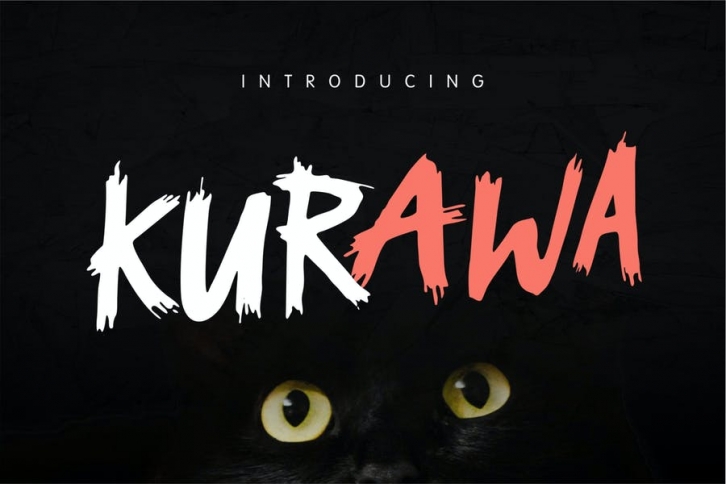
Kurawa is perfect to use for Logotype, Letterhead, Poster, Apparel Design, Label and etc.
The alternative characters were divided into several features such as Stylistic Alternates and Ligature. The Open Type features can be accessed by using OpenType savvy programs such as Adobe Illustrator, Adobe InDesign, Adobe Photoshop Corel Draw X version, And Microsoft Word.
• All Alternates
• Standard Ligatures